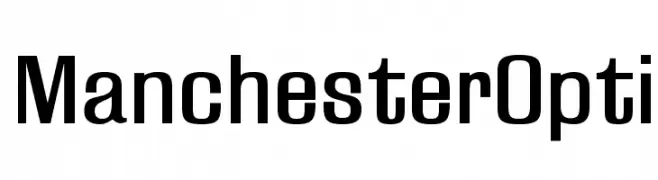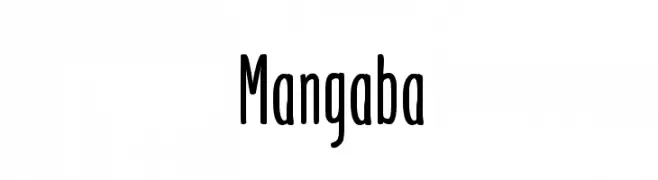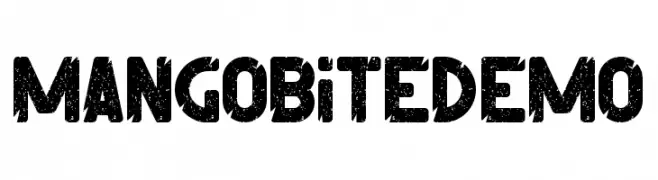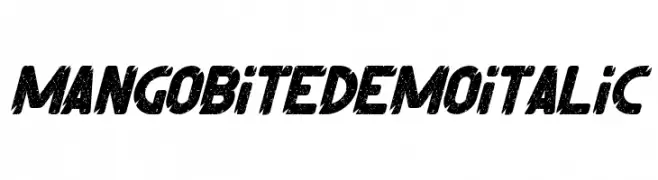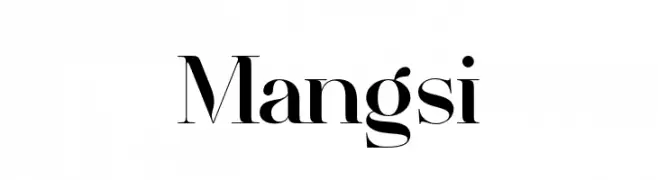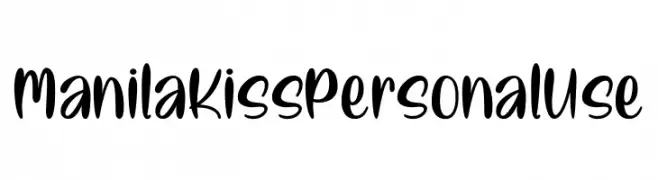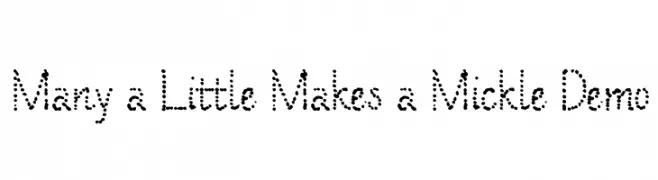
A bold, decorative font with patterned uppercase letters and modern lowercase.
A bold, modern sans-serif font with clean lines and a strong presence.
A playful, rounded, and slightly condensed font with a modern and approachable style.
A bold, distressed font with a vintage, textured appearance.
A bold, distressed italic font with a vintage, grunge style.
A high-contrast serif font with elegant, sharp serifs and a modern appeal.
A bold, playful handwritten font with smooth, flowing curves.
A playful, dotted font with a modern and informal style.
A modern, angular font with a futuristic and edgy design.